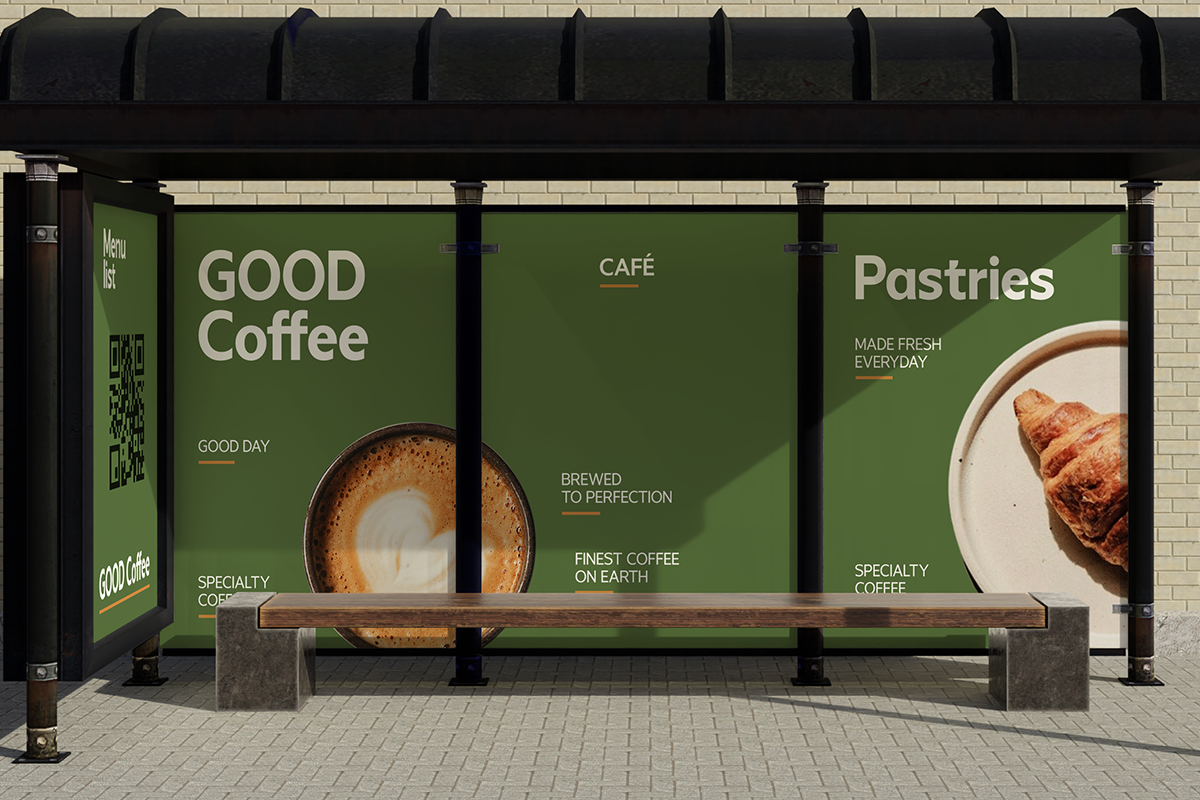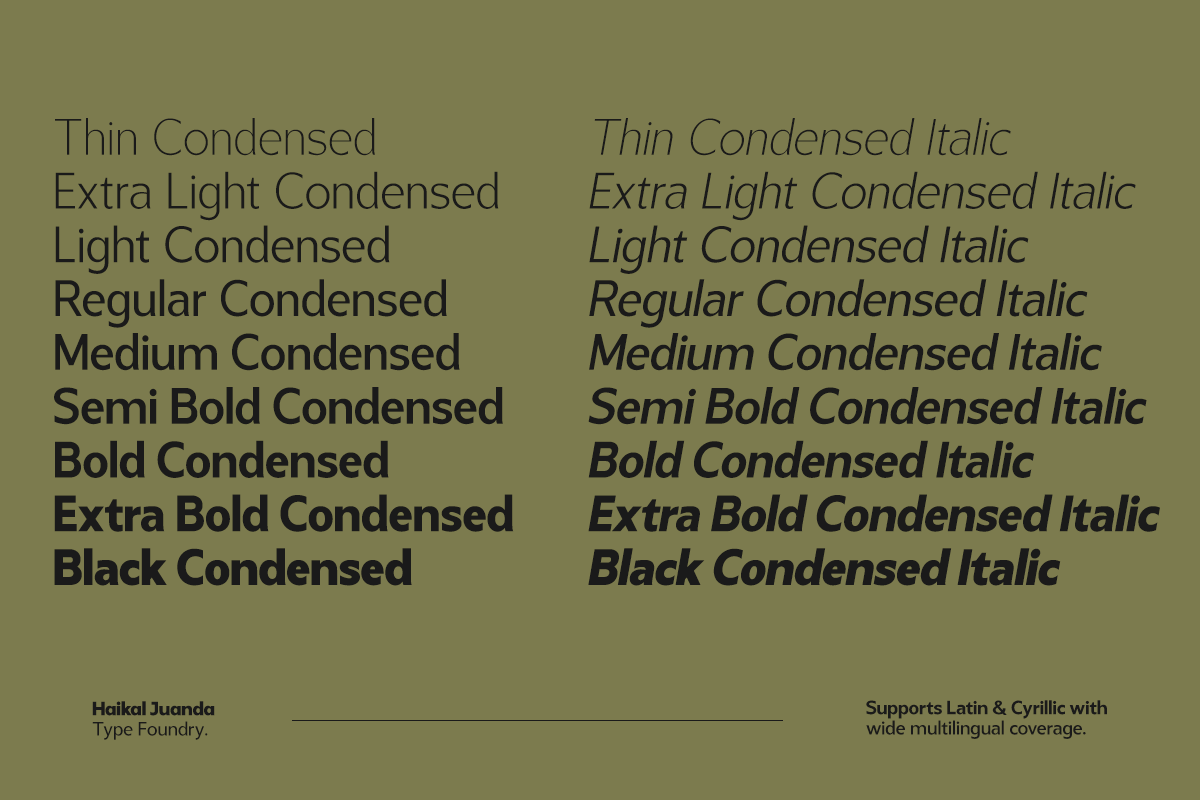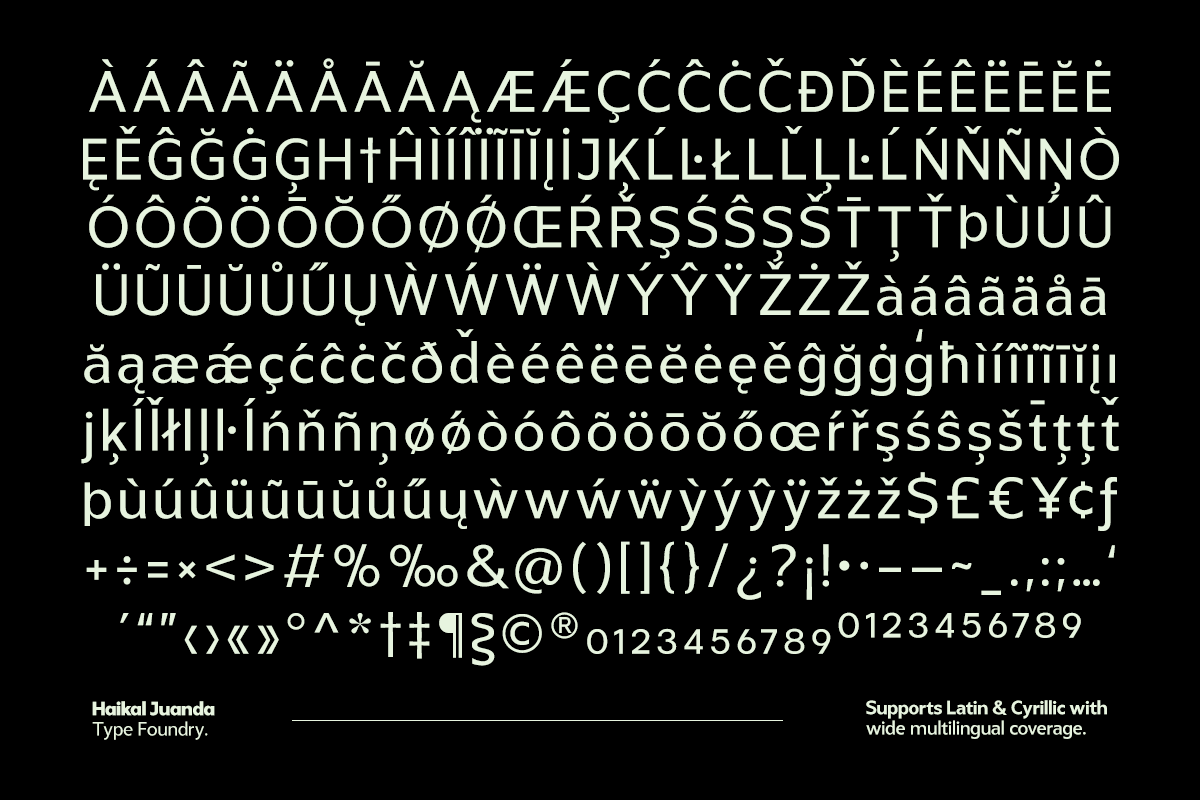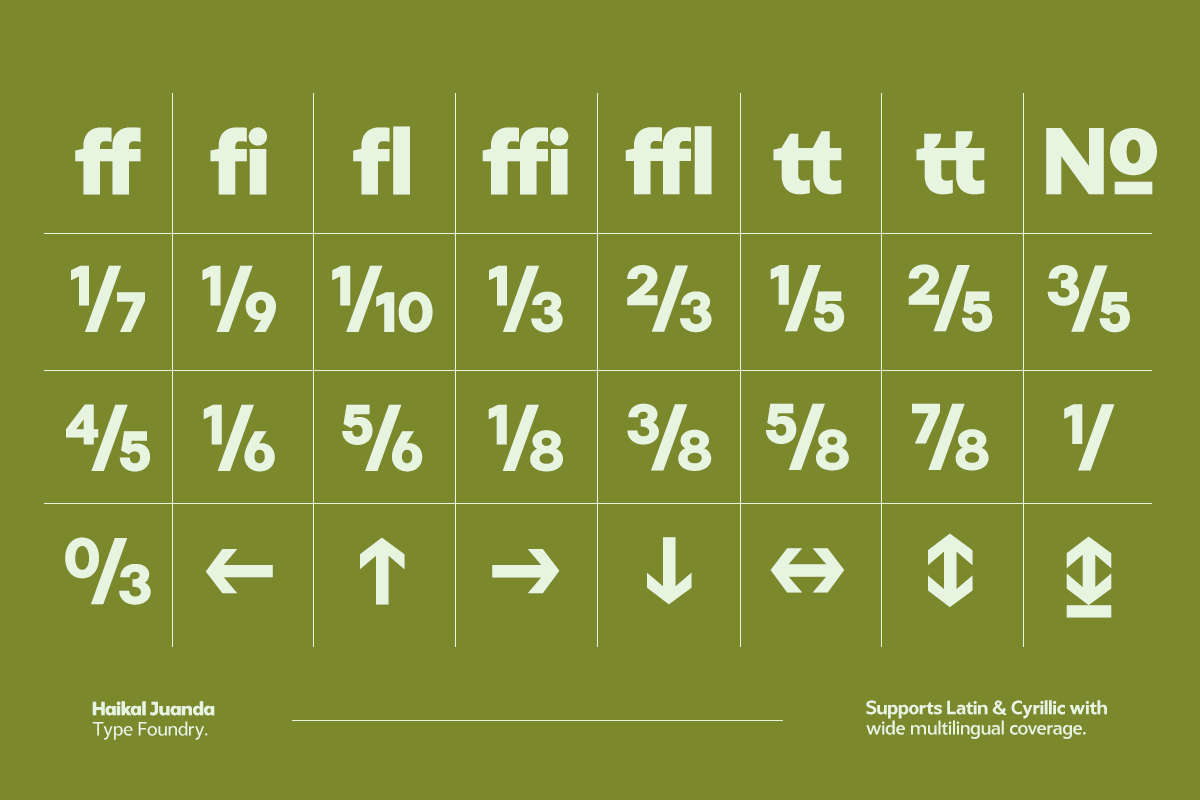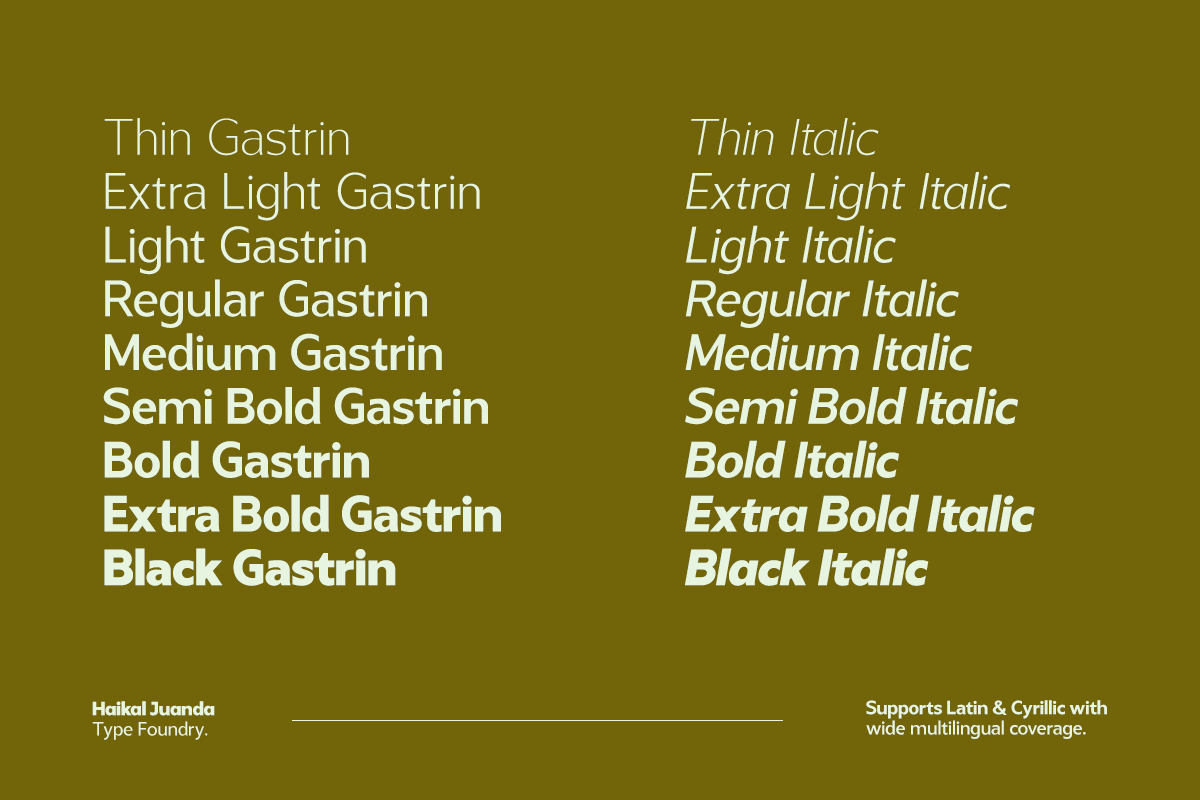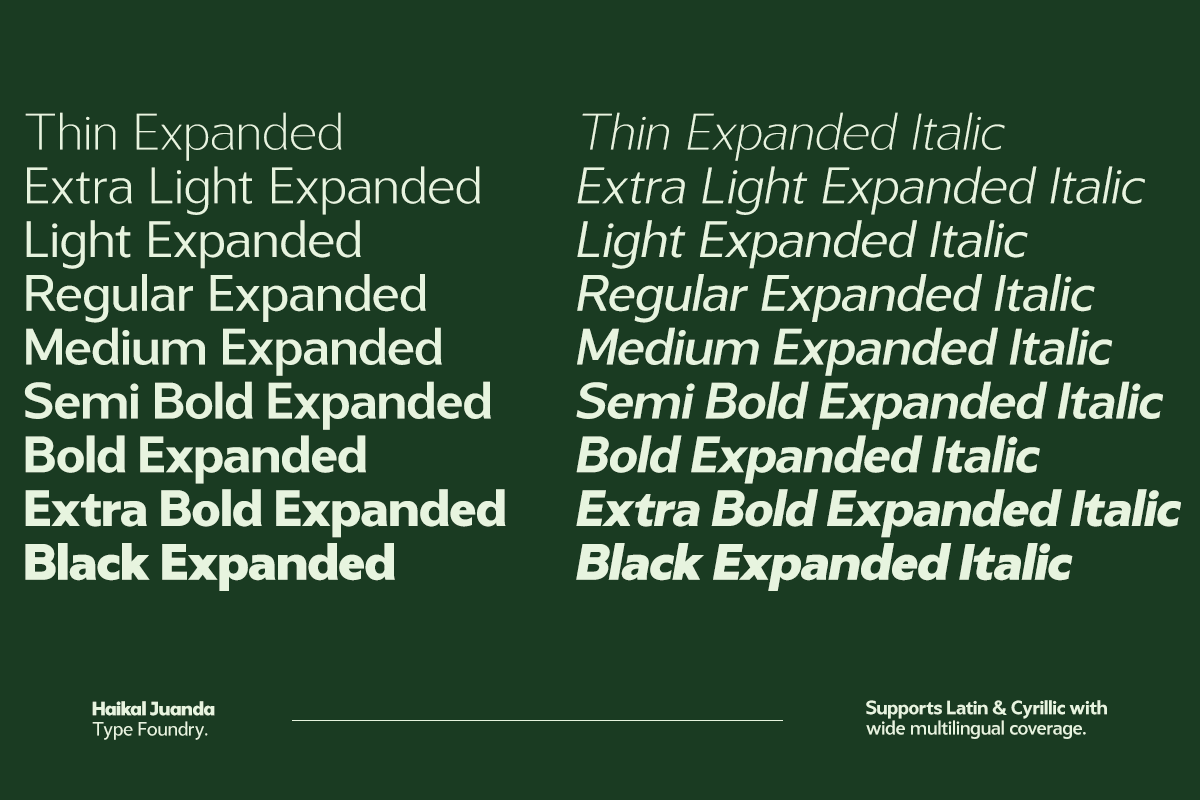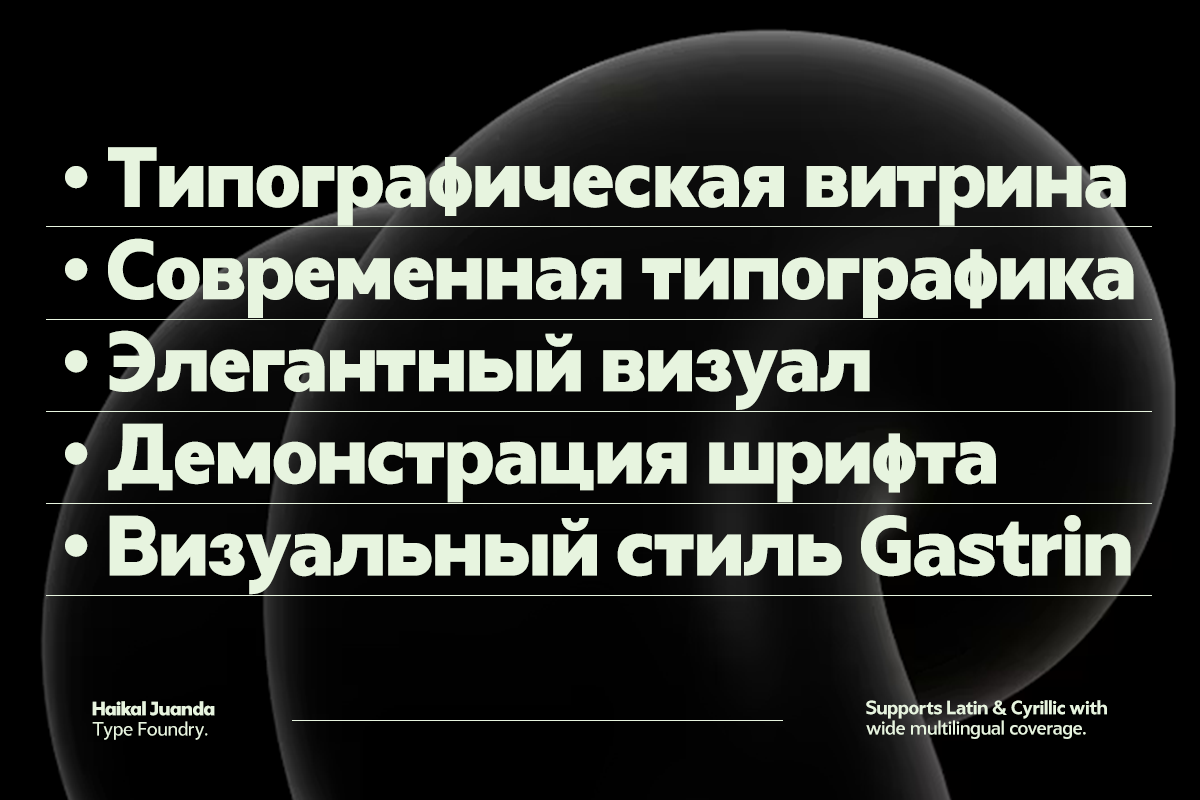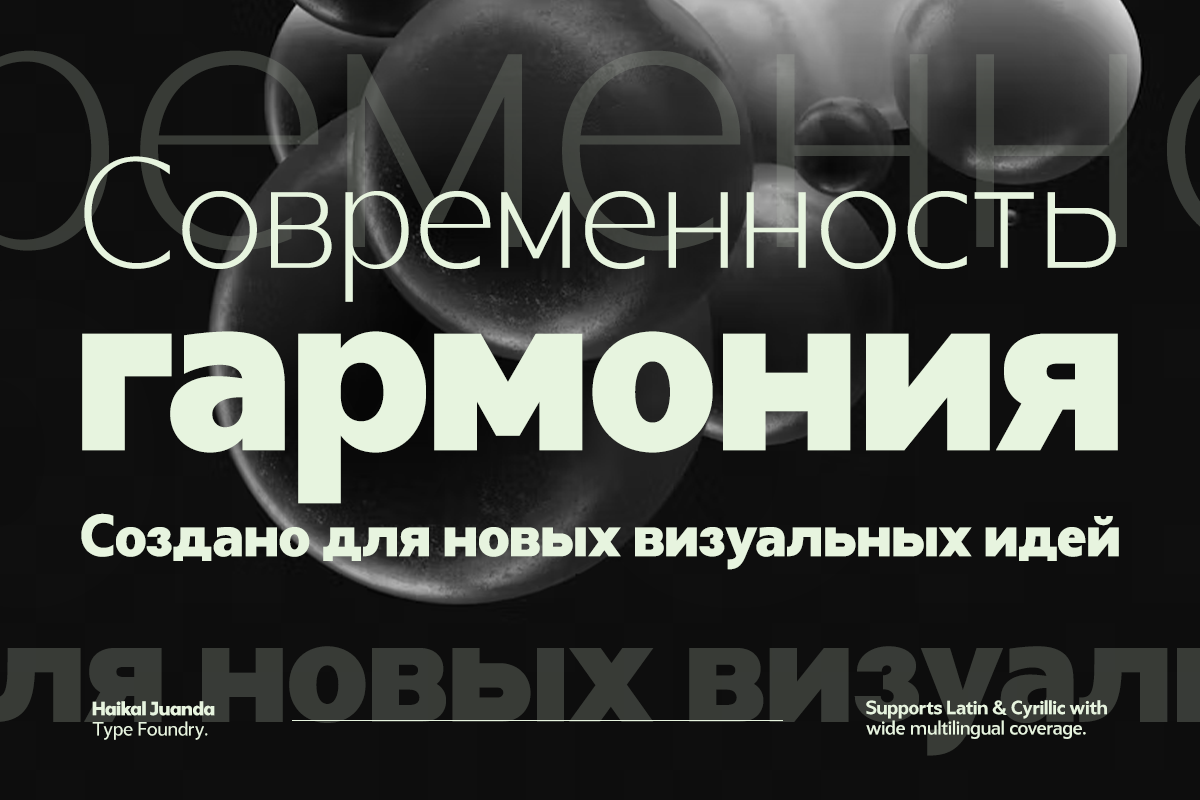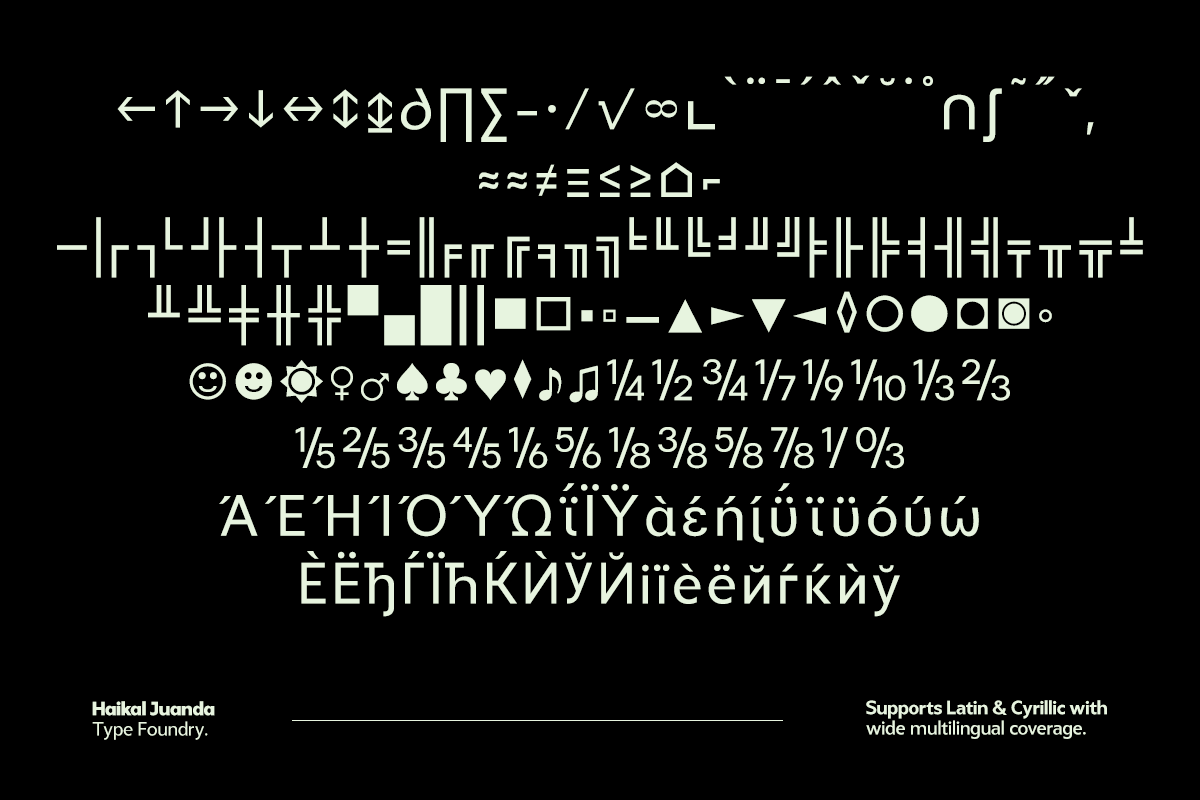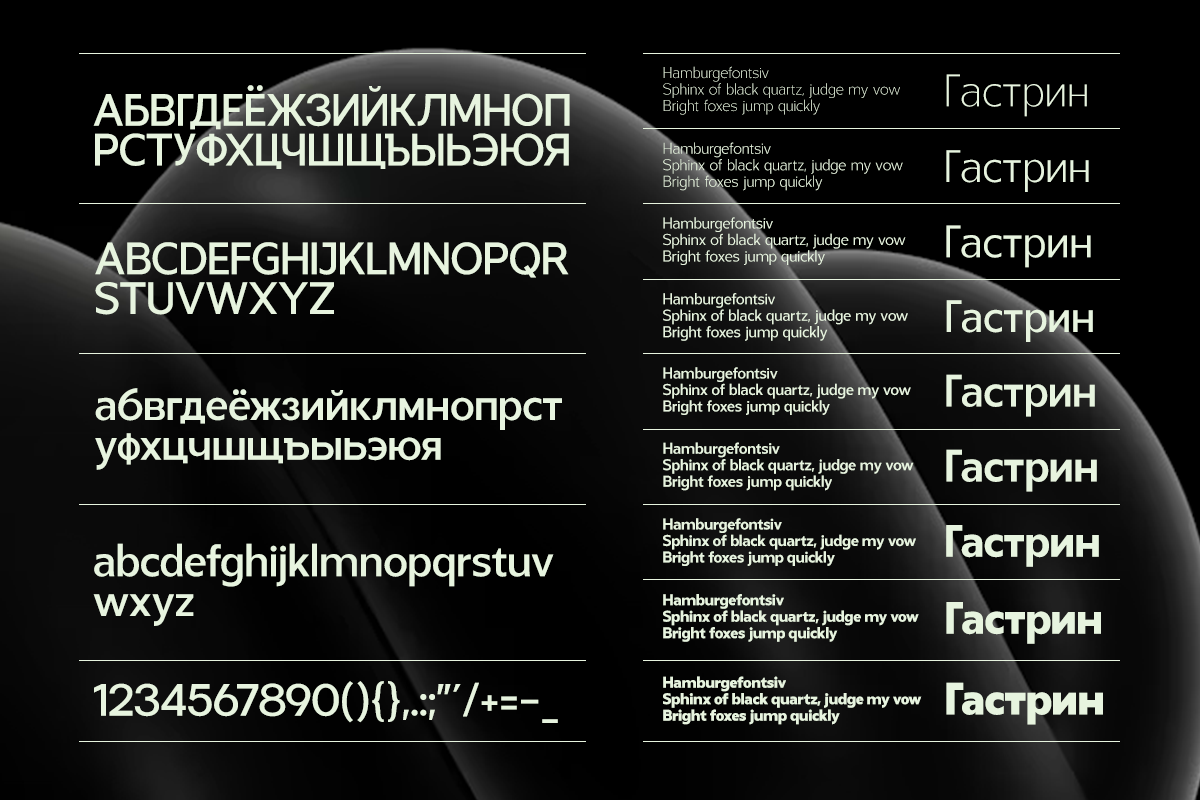
Gastrin
Introducing Gastrin, a modern sans serif typeface crafted with precision, clarity, and contemporary aesthetics. Designed to deliver a clean and refined visual experience, Gastrin combines balanced proportions, smooth curves, and elegant geometric details to create a timeless professional appearance suitable for a wide range of creative needs.
From Thin to Black, every weight is carefully developed to maintain consistency, readability, and visual harmony across all styles. The versatile structure makes Gastrin perfect for branding, editorial layouts, posters, websites, packaging, social media content, UI design, presentations, and contemporary visual identities. Whether used for bold headlines or clean body text, the font delivers a modern and sophisticated character in both print and digital applications.
The minimalist design approach allows Gastrin to adapt effortlessly to modern trends while still maintaining a strong and distinctive personality. Clean spacing, smooth letterforms, and balanced construction help create professional compositions with an elegant visual rhythm.
Multilingual support includes extended Latin and Cyrillic character sets, making Gastrin suitable for international communication, global branding, and multilingual design projects.